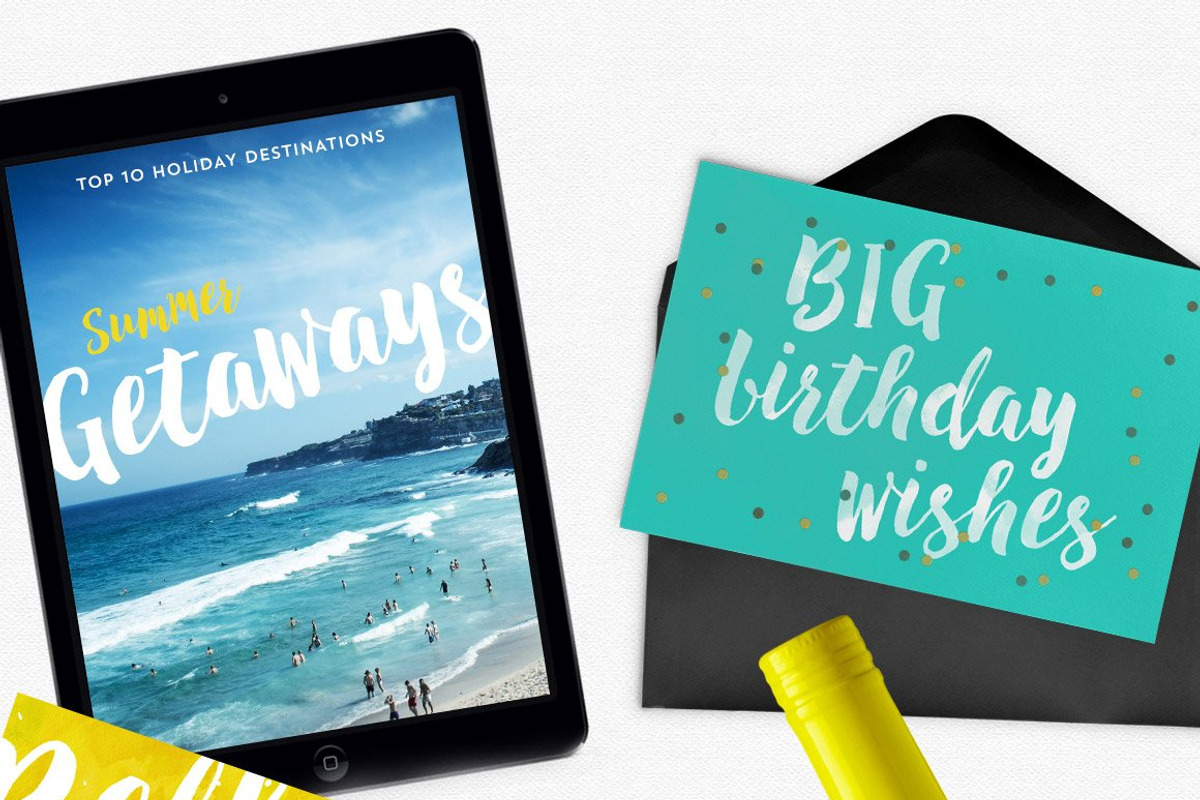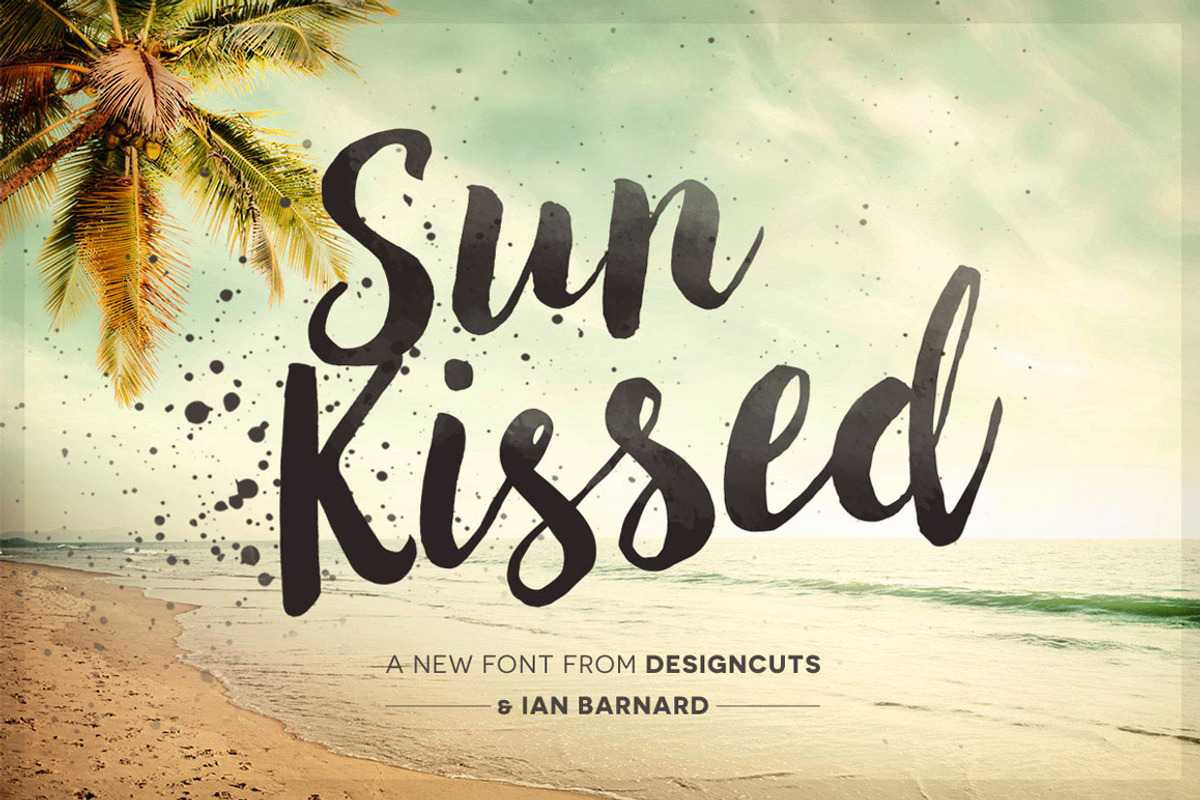
Sun Kissed Brush Font
Sun Kissed Brush Font (Plus Bonus Brushography Pack)
We’ve teamed up with world renowned hand-letterer Ian Barnard to bring you an amazing new brush font called Sun Kissed Brush Font.
Ian is well known for his incredible lettering on Instagram, and has recently been interviewed by the BBC about his work.
Sun Kissed has taken months of hard work to research, refine and test. We wanted to bring you a work-horse font, that gives you continuous value across countless projects. It has the artistic flair that our community love, as well as the pixel perfect precision that you’d expect from a world class font.
Sun Kissed is perfect for branding work, social media imagery, postcards, logos, print design and more!
We listened carefully to the community’s feedback to make Sun Kissed as special as possible. Here’s why we know you’ll love working with it:
- Sun Kissed has a really creative aesthetic, but is versatile enough to use across a range of design projects.
- It includes tons of contextual alternates, which when turned on ensure that no two letters get repeated. This gives your text more authenticity and a more natural, hand-drawn feel.
- There are plenty of additional characters, which means you get real creative freedom, straight from your glyphs panel.
- Sun Kissed also has international language support, including: English, Danish, Norwegian, Dutch, Flemish, Afrikaans, Frisian, Finnish, French, Irish, Scottish, German, Portuguese, Spanish, Swedish and Italian.